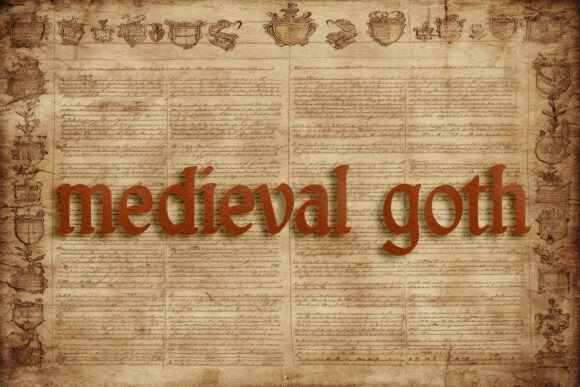
Introduction to Medieval Goth Font
Have you ever found yourself scrolling through Pinterest, searching for the perfect design inspiration for your next creative project? Maybe you stumbled upon a stunning poster or a beautifully crafted invitation that caught your eye. For many designers, the Medieval Goth Font is the key to unlocking that unique, captivating look. This versatile font is not just a design resource, but a game-changer for any project that requires a touch of elegance and mystery.
With its unique blend of old-world charm and modern gothic aesthetics, the Medieval Goth Font is sure to leave an indelible impression on your audience. So why settle for a generic font when you can elevate your creative project with this unparalleled typography?
Key Features of Medieval Goth Font
- High-quality, intricately designed characters with a dark, mystical aesthetic, perfect for creative projects that require a unique touch.
- Features a transparent background, allowing for seamless integration into any design project, from digital art to print materials.
- Includes a comprehensive character set, covering a wide range of languages, making it suitable for international creative projects.
- Designed at a high resolution (300 DPI), ensuring crisp and clear display, even when scaled up or used in large formats.
- Perfect for adding a touch of medieval mysticism to your design, whether it’s a logo, typography, or any other creative project.
Honest Review: Medieval Goth Font
I recently came across the Medieval Goth Font, and I must say it’s a unique addition to any design resource. The font’s gothic and medieval-inspired aesthetic is perfect for creative projects that require a dark, mysterious vibe.
Here are some of the things that work well: ✨ High quality and clear typography ✨ Wide range of character sets ✨ Perfect for creative projects with a dark or gothic theme
However, there are a few limitations: ⚠️ Limited language support ⚠️ May not be suitable for projects requiring a modern or minimalist aesthetic
Overall, I’m impressed with the Medieval Goth Font. It’s a great resource for designers looking to add some edge to their creative projects. While it may not be perfect, its unique aesthetic and high quality make it a valuable addition to any design collection.
- Perfect for creative projects with a dark or gothic theme
- High quality and clear typography
- Wide range of character sets
How to Use Medieval Goth Font
The Medieval Goth Font is a unique and high-quality design resource that can add a touch of elegance and mystery to any creative project. With its intricate details and ornate design, this font is perfect for designers looking to create a distinctive and eye-catching visual identity.
The Medieval Goth Font is available for free download, making it an excellent choice for designers on a budget. The font also features a transparent background, allowing for easy customization and integration with other design elements.
Using Medieval Goth Font in Popular Design Platforms
This font can be used in a variety of design platforms, including:
– Use the Medieval Goth Font to create stunning graphics and designs for social media, marketing materials, and more.
– Import the font into your design projects and use it to add a touch of sophistication and elegance.
– Add the Medieval Goth Font to your presentations and documents to make them stand out from the crowd.
Tips for Getting the Most Out of Medieval Goth Font
To get the most out of this font, use it sparingly and strategically to create a sense of drama and emphasis. Experiment with different font sizes, colors, and combinations to find the perfect balance for your design project.
The Medieval Goth Font is perfect for:
- Dark fantasy and horror-themed designs
- Steampunk and sci-fi projects
- Victorian-era inspired designs